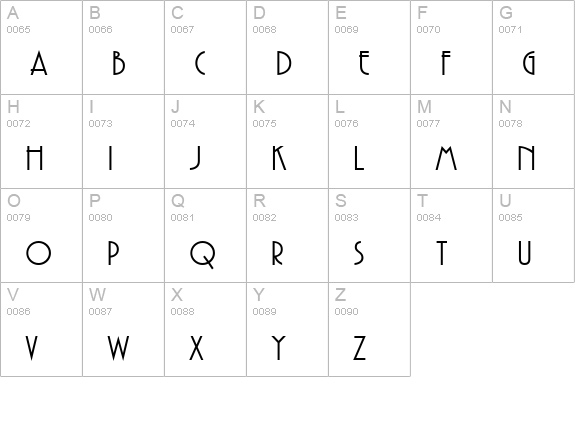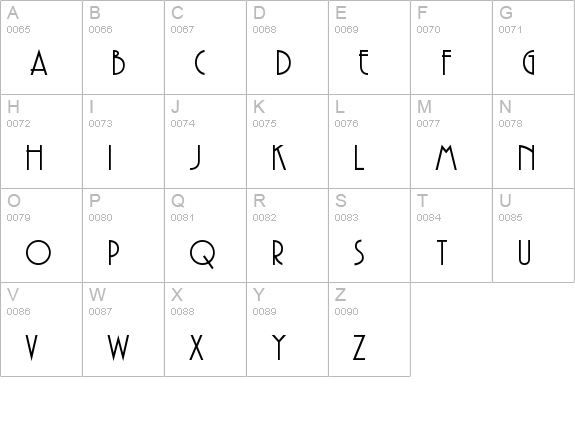
Pouf SSi Semi Bold Font Details
Pouf SSi Semi Bold is a strong, high-contrast variant in the Pouf typeface family \xE2\x80\x94 well suited to headlines, attention-grabbing titles, and strong calls-to-action.
Pouf SSi Semi Bold font is a modern and stylish typeface that exudes sophistication and elegance. Its semi-bold weight strikes the perfect balance between boldness and readability, making it ideal for a wide range of design projects. With its sleek and clean lines, Pouf SSi Semi Bold font adds a touch of professionalism to any text or headline. What sets Pouf SSi Semi Bold font apart is that it is available for free download at FontsMarket.com. This means that you can easily access this high-quality font without any cost, making it a valuable resource for designers, creatives, and anyone looking to elevate their projects with a touch of class. Whether you're working on branding, advertising, packaging, or any other design project, Pouf SSi Semi Bold font is a versatile and reliable choice that will help you make a lasting impression. Download it now for free and unleash your creativity with this stunning typeface.